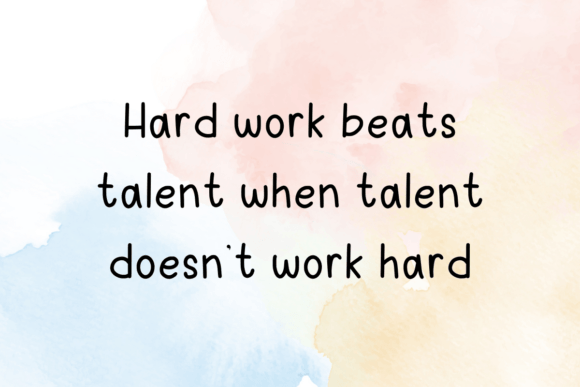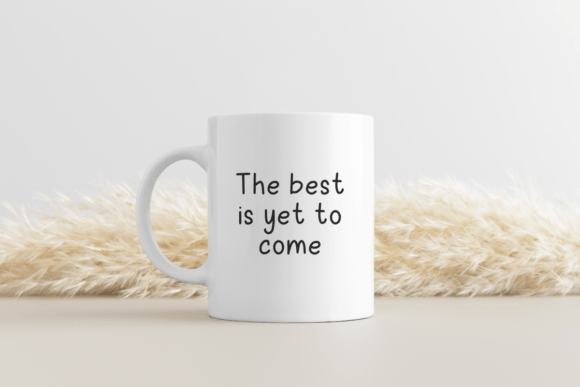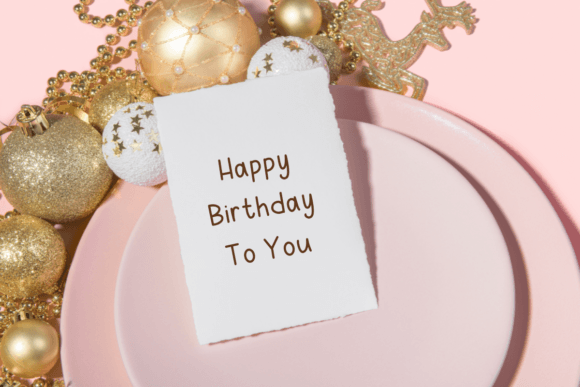
Unlocking Endless Creativity with Abstract Line Font
Have you ever been stuck on a design project, searching for that perfect font to bring your vision to life? You scroll through countless options, but none seem to capture the essence of your creative idea. This is where Abstract Line Font comes in – a game-changing sans serif font that’s as versatile as it is stylish.
This charming font is more than just a pretty face; it’s a tool designed to help you unleash your imagination and push the boundaries of your designs. With Abstract Line Font, the possibilities are endless, limited only by your creativity. Whether you’re a seasoned designer or just starting out, this font is sure to become your new go-to partner in crime.
So, what are you waiting for? Dive into the world of Abstract Line Font and discover the limitless potential it has to offer.
Abstract Line Font Key Features
- Font Family: Abstract Line Font is a unique sans-serif font family designed to resemble abstract lines and shapes.
- Character Set: Supports a wide range of characters, including Latin, Cyrillic, and Greek alphabets, as well as various symbols and punctuation marks.
- Unique Characteristics: Features a distinctive, hand-drawn aesthetic with varying line widths and irregularities, adding a touch of human touch to digital designs.
Review of Abstract Line Font
I recently had the chance to work with the Abstract Line Font, and I’m excited to share my honest thoughts on this unique font.
- Unique aesthetic: The Abstract Line Font has a distinctive style that sets it apart from more traditional fonts.
- Expressive potential: This font is perfect for designers who want to add an extra layer of emotion to their work.
- Flexibility: The Abstract Line Font comes in a range of weights, making it suitable for a variety of design projects.
- Limited legibility: The Abstract Line Font can be challenging to read, especially at smaller font sizes.
- Not ideal for body text: Due to its unique style, this font may not be the best choice for large blocks of text.
- Requires careful use: The Abstract Line Font can be overwhelming if used too extensively, so it’s essential to use it thoughtfully.
Overall, I think the Abstract Line Font is a great addition to any designer’s toolkit, but it’s essential to understand its limitations and use it judiciously.
For a unique look, use the font in combination with a bold or italic style.
Use the font in combination with layer styles and effects to create a striking visual effect.
Use the font to create eye-catching headings and titles.
Abstract Line Font is ideal for:
- Creativity and art projects
- Infographics and visualizations
- Headings and titles in marketing materials
Remember to experiment with different font sizes and styles to get the most out of this unique font.
Alternatives to Abstract Line Font
Great Vibes is a modern, cursive font that resembles a mix of handwritten and digital elements. It’s ideal for use in headings, titles, and body text where a relaxed, friendly tone is desired.
Compared to Abstract Line Font, Great Vibes has a more fluid and organic feel, with a wider range of swashes and flourishes. It’s also more readable in smaller sizes, making it a good choice for body text.
Carolyna Pro is a sophisticated, elegant font with a mix of modern and vintage elements. It’s perfect for use in high-end branding, luxury products, and premium services where a touch of sophistication is required.
Compared to Abstract Line Font, Carolyna Pro has a more refined and polished feel, with a focus on precision and elegance. It’s also more versatile, with a wide range of weights and styles available.
Yes, Abstract Line Font allows for customization of line widths and styles through the use of OpenType features. You can adjust the line width, weight, and style using font software or design tools that support OpenType features. This level of customization enables you to create a wide range of designs and effects, from subtle nuances to bold statements.